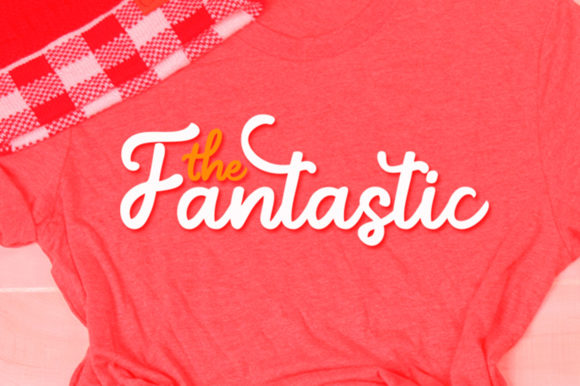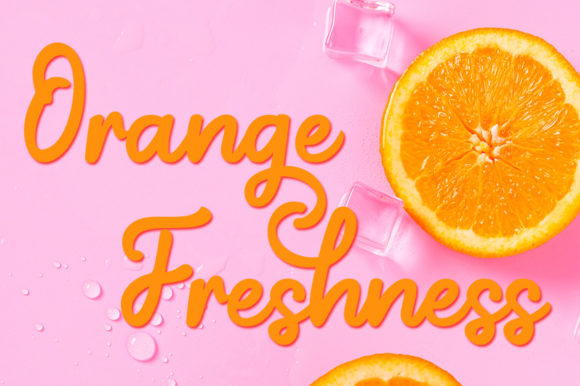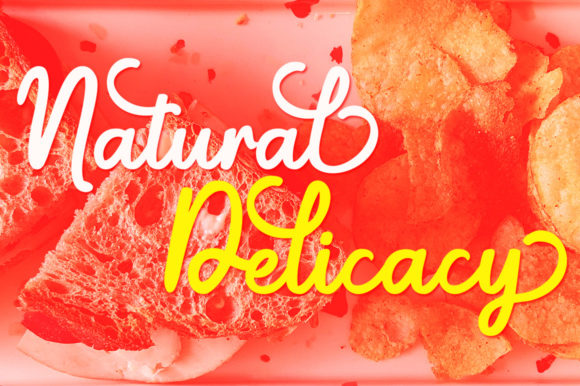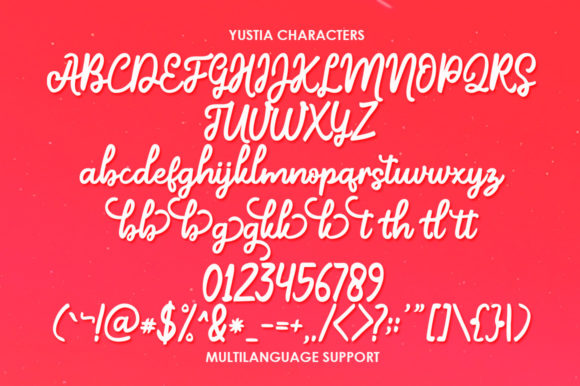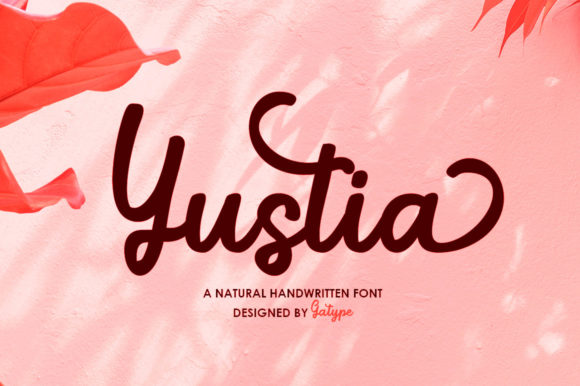
About Yustia Script Font
Yustia Script is a tall and elegant handwritten font. This font is perfect for creating modern designs like ads, logos, branding, quotes, poster, wedding invitation and more. Yustia Script is PUA encoded which means you can access all of the glyphs and swashes with ease!